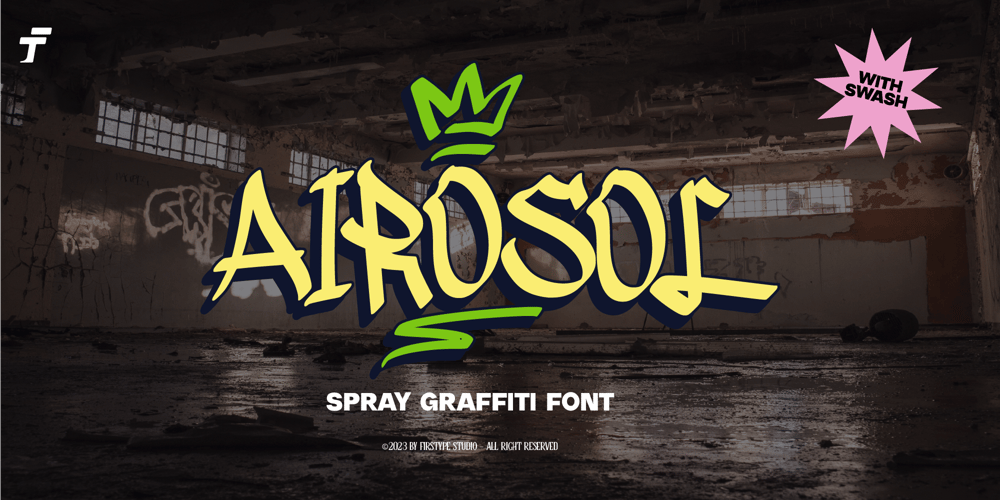
Airosol Font Family was designed by Adrian Syauqi and published by Firstype Studio. Airosol contains 2 styles and family package options. Airosol is an edgy and expressive graffiti font that captures the essence of street art with a style that’s undeniably urban. It’s the perfect choice for designers and artists looking to infuse their projects with a raw and rebellious vibe, complete with striking swashes for added flair.Gritty Street Art Aesthetics:Airosol is a graffiti font that channels the raw energy and aesthetics of street art. Its bold and expressive letterforms showcase the essence of rebellious creativity, making it a standout choice for projects that demand an urban edge.Street Art Style:What sets Airosol apart is its authentic street art style. Every character exudes a sense of authenticity, as if it were lifted directly from a city wall, ready to make a statement.Swashes for Added Impact:Airosol comes with dynamic swashes, allowing you to accentuate your text with unique and artistic flourishes. These swashes are your tool for adding that extra touch of graffiti-inspired artistry to your designs.Versatile Expression:Airosol is more than just a font; it’s a versatile form of expression. Whether you’re working on urban branding, event posters, or any project that demands a street-smart aesthetic, Airosol will be your creative companion.Unleash Your Inner Rebel:With Airosol, you’re not just selecting a font; you’re unleashing your inner rebel and embracing the power of street art in your designs.Choose Airosol for Your Urban Adventures:Explore the creative possibilities with Airosol, and experience how its graffiti-inspired aesthetics and swashes breathe life into your projects, from the streets to the screen.